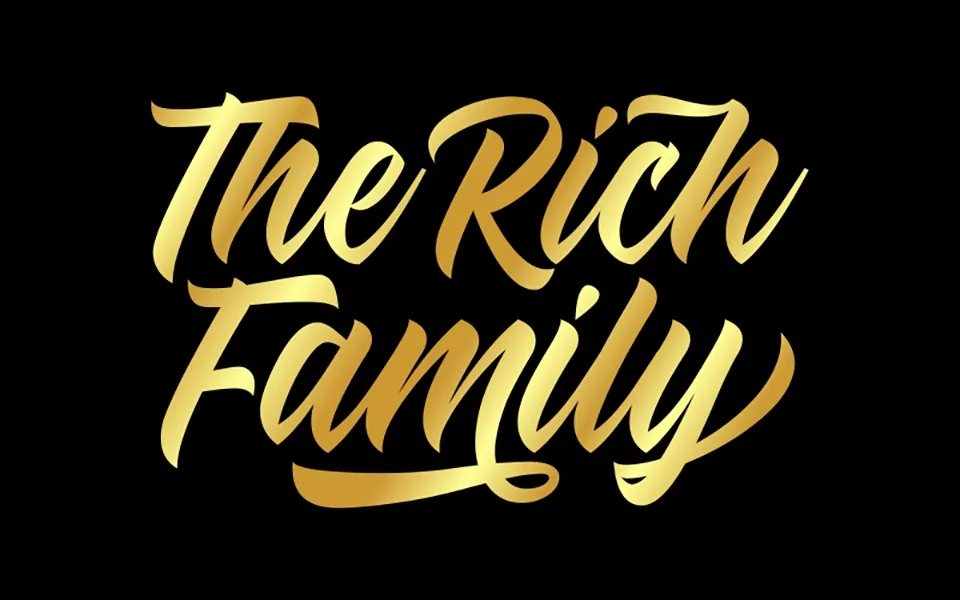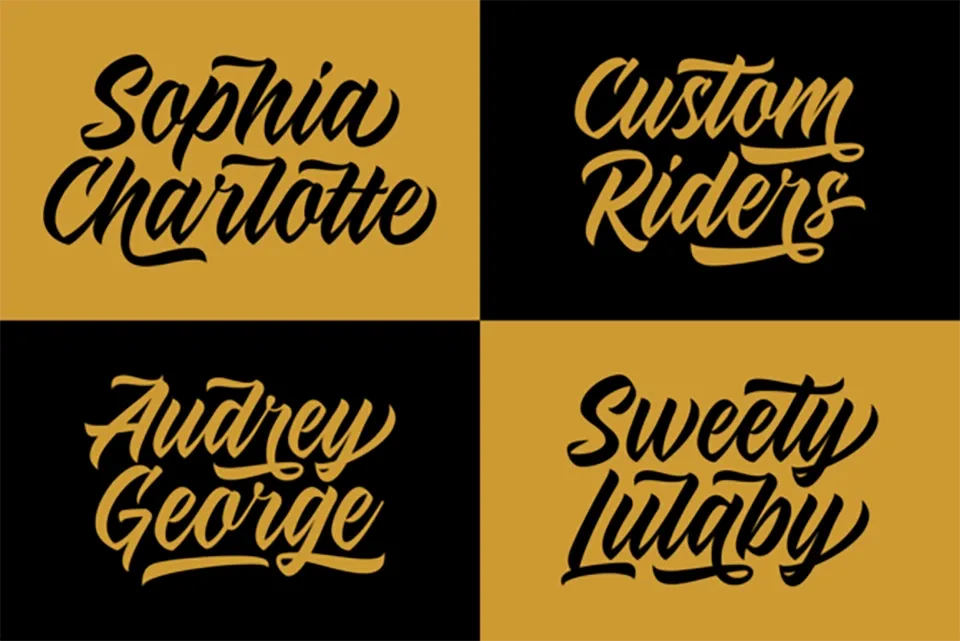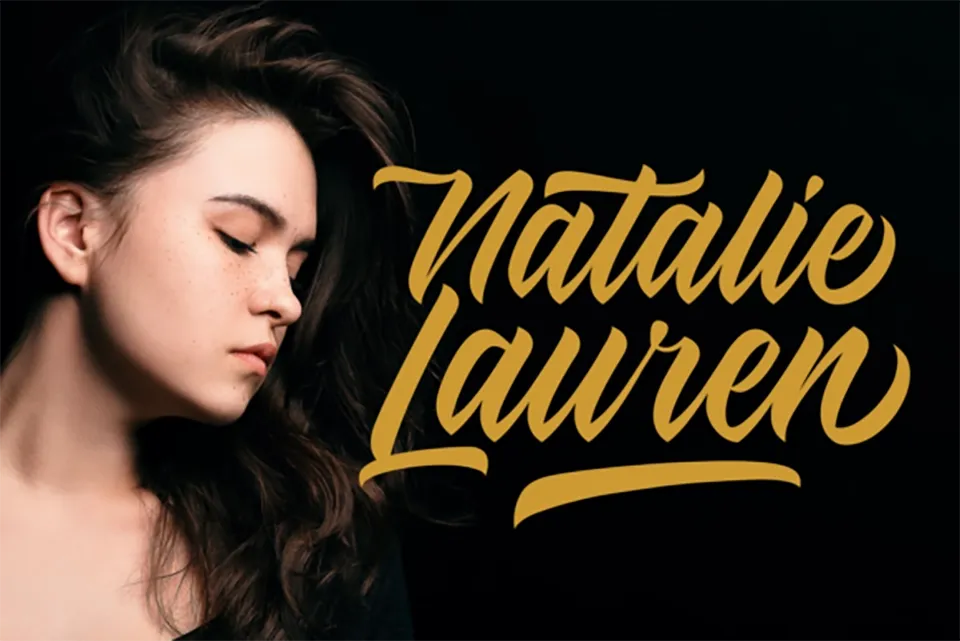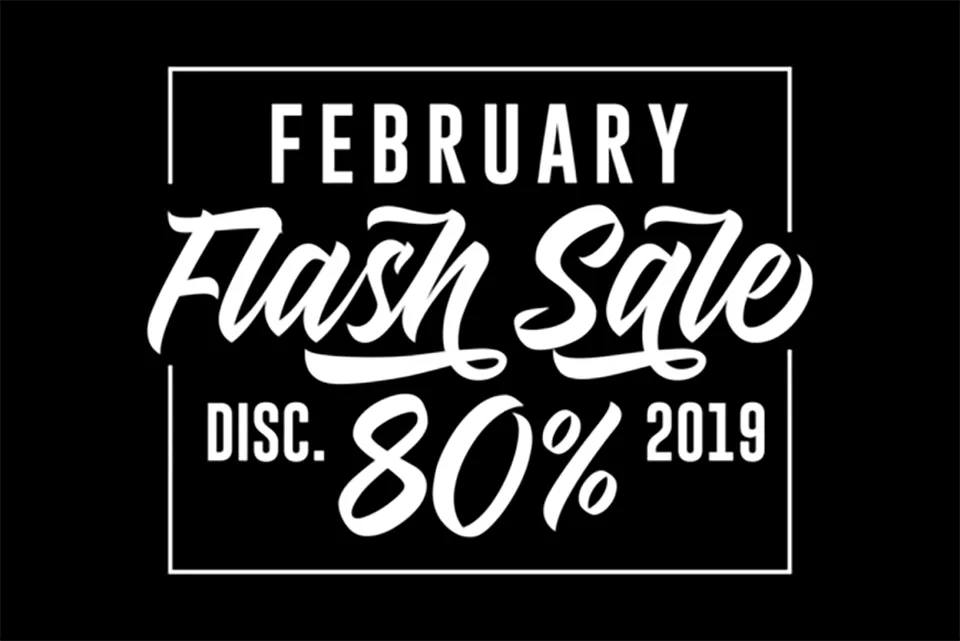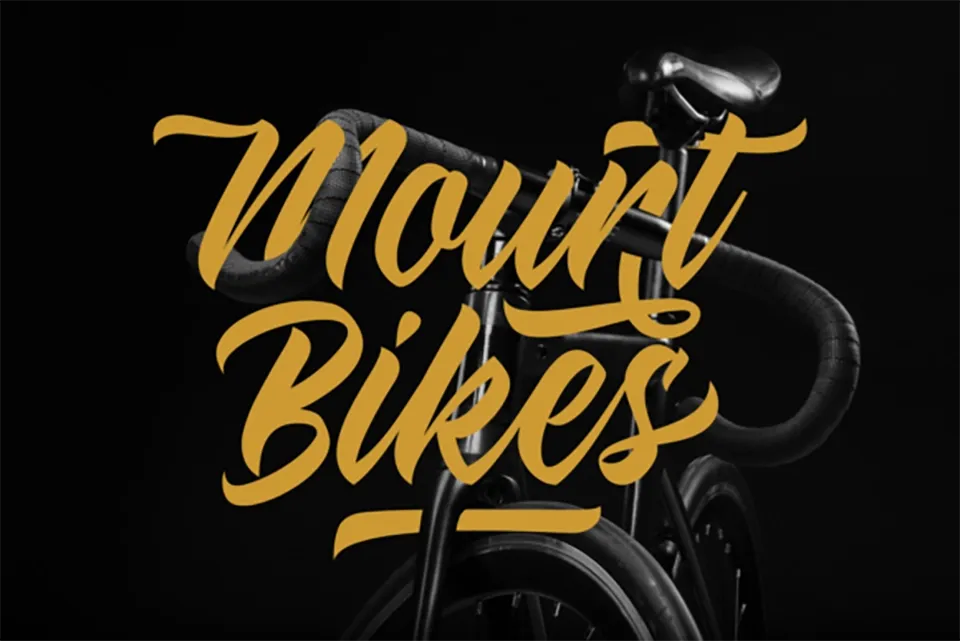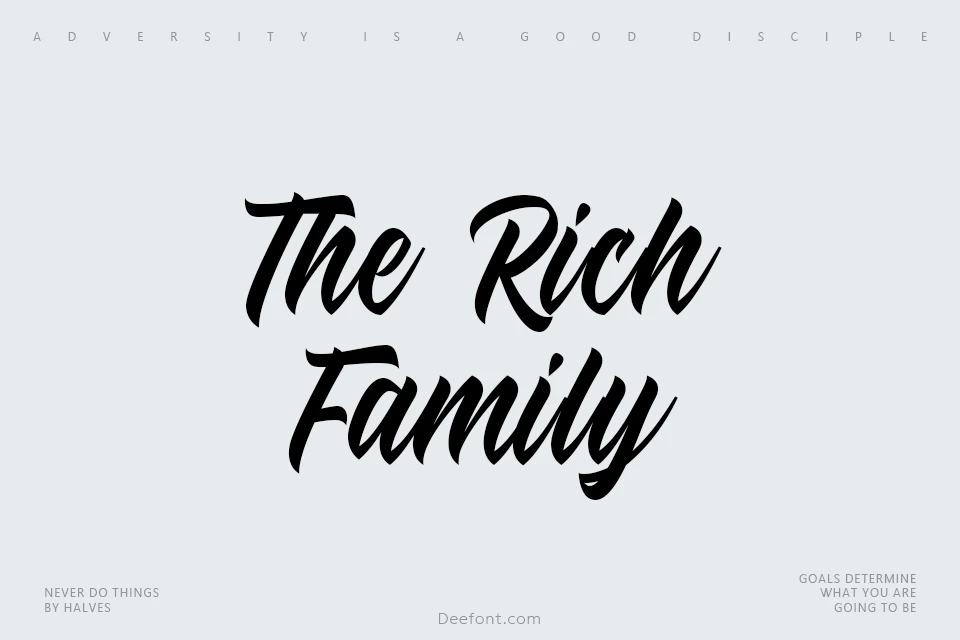
The Rich Family Font
The Rich Family Font is a luxurious and bold script typeface designed to make a striking visual impact. Featuring smooth, flowing strokes and elegant curves, this font exudes sophistication and style, making it perfect for branding, logos, invitations, packaging, and social media designs. Its handcrafted aesthetic adds a personal touch while maintaining a polished and professional look. The Rich Family Font is ideal for projects that require a sense of opulence and refinement, with its dynamic letterforms ensuring your designs stand out. Whether for formal or creative applications, this typeface delivers versatility and charm, elevating any project with its premium appeal.